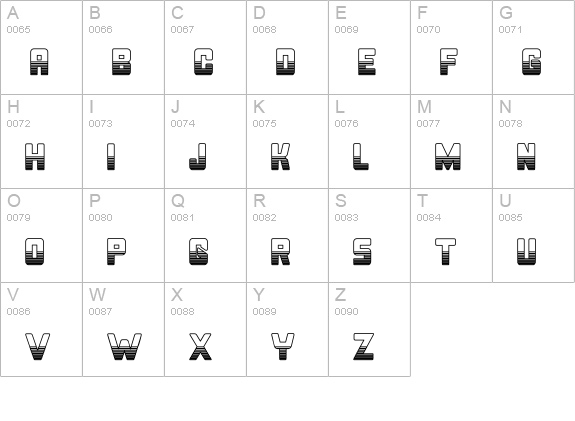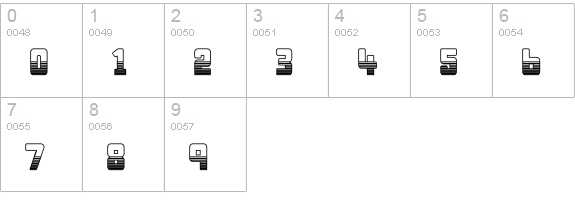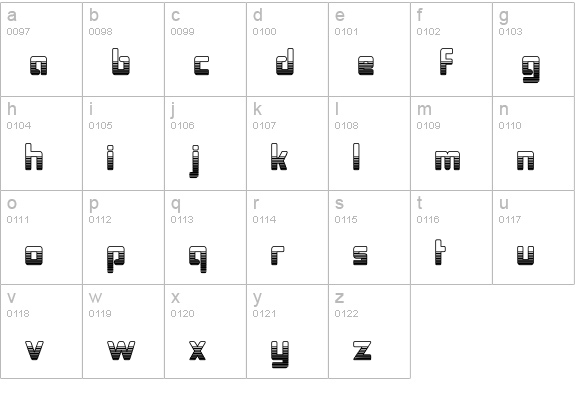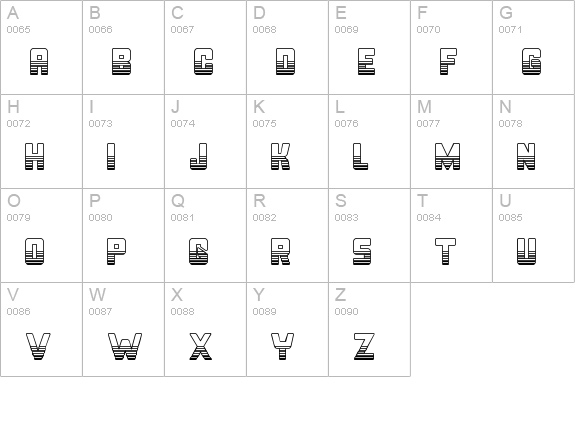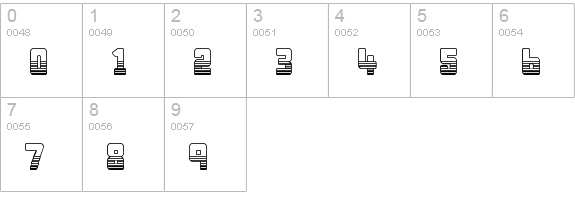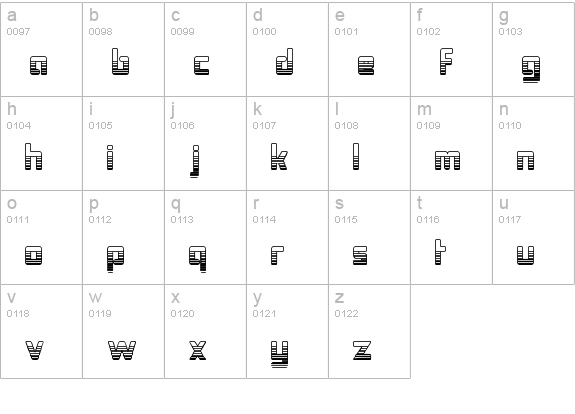
Bonk Outercut font is a modern and stylish typeface that exudes creativity and playfulness. The unique cut-out design of the letters gives this font a distinct edge, making it perfect for eye-catching headlines, logos, and branding projects. With its bold and dynamic appearance, Bonk Outercut font is sure to make a statement wherever it is used. What sets Bonk Outercut font apart is not only its striking visual appeal but also its versatility. Whether you're working on a poster, website design, or social media graphics, this font will add a touch of personality and flair to your projects. Its clean lines and geometric shapes make it easy to read while still maintaining a sense of fun and originality. And the best part? Bonk Outercut font is completely free to download at FontsMarket.com. This means you can start using this fantastic font in your designs right away without having to worry about breaking the bank. So why wait? Add Bonk Outercut font to your font collection today and let your creativity shine!